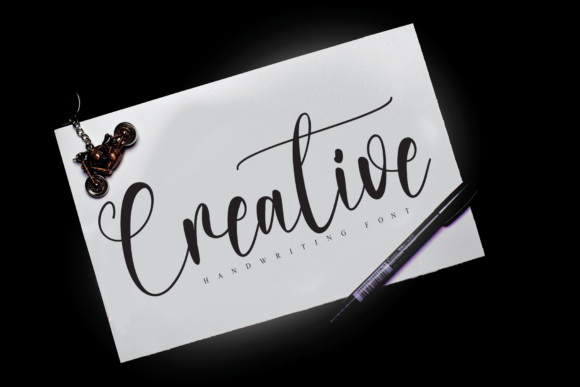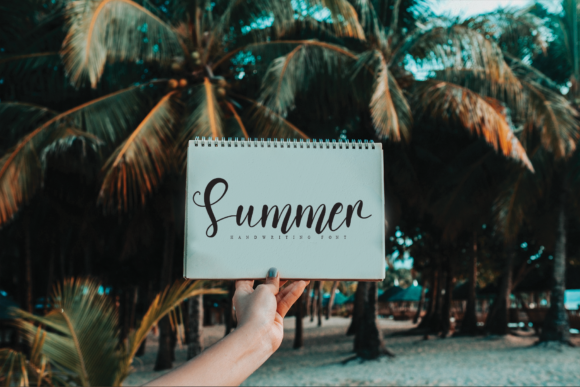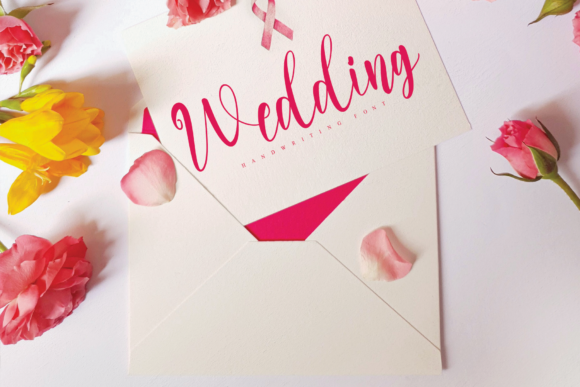
Introducing Angelic Signature Font: Elevate Your Designs with Elegance and Sophistication
In the world of typography, a font can make or break the aesthetic of a design project. For designers and crafters seeking to infuse their work with a touch of sophistication and elegance, the Angelic Signature Font is an exceptional choice. This chic, refined script font is meticulously crafted to bring a sense of luxury and refinement to any project it adorns.
The Essence of Angelic Signature Font
Angelic Signature Font is more than just a collection of letters; it’s an expression of style and grace. Its fluid strokes and beautiful ligatures are designed to convey a sense of exclusivity and high-end quality. Whether you’re working on a branding project, a wedding invitation, a fashion blog, or any other creative endeavor, this font promises to elevate your design to new heights of elegance.
Key Features of Angelic Signature Font
- Stylish Alternates and Ligatures: One of the standout features of Angelic Signature Font is its comprehensive set of stylish alternates and ligatures. These elements allow for a high degree of customization, enabling designers to add a unique touch to their work. The alternates provide different stylistic options for letters, while the ligatures offer elegant connections between specific letter pairs, creating a seamless and sophisticated look.
- Versatility: The Angelic Signature Font is incredibly versatile, making it suitable for a wide range of applications. From luxury branding and high-end product packaging to elegant stationery and refined digital content, this font adapts effortlessly to various design needs.
- Ease of Use: Despite its complex and elegant appearance, Angelic Signature Font is remarkably easy to use. Designers can quickly incorporate it into their projects, using its extensive features to create stunning and cohesive designs.
Applications of Angelic Signature Font
The applications of Angelic Signature Font are vast and varied. Here are a few examples where this font truly shines:
- Wedding and Event Invitations: Add a touch of romance and sophistication to your wedding or event invitations with this beautiful script font.
- Luxury Branding: Elevate your brand’s image with a font that exudes elegance and refinement.
- Fashion and Beauty: Perfect for fashion blogs, beauty product packaging, and high-end fashion brand identities.
- Stationery and Packaging: Create stunning and elegant stationery sets, gift tags, and product packaging.
Tips for Using Angelic Signature Font Effectively
To make the most of Angelic Signature Font, consider the following tips:
- Pair with Simplicity: For maximum impact, pair Angelic Signature Font with simpler fonts. This contrast will highlight the elegance of the script font and ensure your design remains balanced.
- Adjust Size and Color Thoughtfully: Experiment with different sizes and colors to find the perfect combination that suits your design’s mood and purpose.
- Utilize Ligatures and Alternates: Take advantage of the font’s ligatures and alternates to add uniqueness and personality to your text.
Angelic Signature Font is a powerful tool for designers and crafters aiming to infuse their projects with elegance and sophistication. Its stylish alternates, ligatures, and versatile nature make it an excellent choice for a wide array of design applications. By incorporating Angelic Signature Font into your work, you’re not just choosing a typeface; you’re elevating your design to embody luxury, refinement, and a touch of angelic beauty.
Whether you’re a seasoned designer or a crafting enthusiast, Angelic Signature Font promises to transform your projects, making them stand out with a classy and sophisticated appeal that’s sure to captivate your audience.